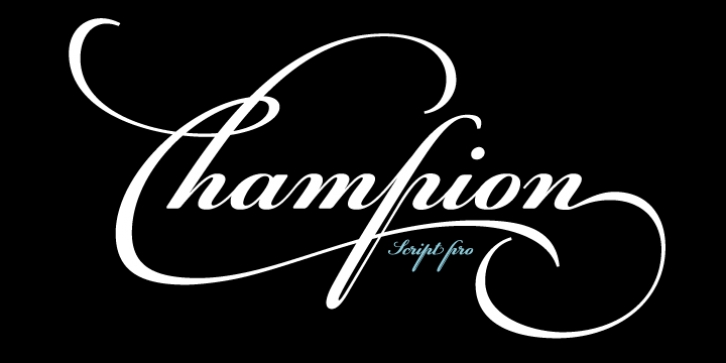
PF Champion Script Pro is perhaps the most advanced and powerful calligraphic family ever made.
It received an award for Excellence in Type Design from the International Type Design Competition ‘Modern Cyrillic 2009’ which was held in Moscow.
Most recently, it received another award from the 3rd International Eastern Type Design Competition - Granshan Awards 2010.
This typeface was first presented in June 2007 at the 3rd International Conference on Typography and Visual Communication (ICTVC) and was met with rave reviews.
It is based mainly on the manuscripts of the 18th century English calligrapher Joseph Champion. Developed over a period of two and a half years, each one of the 2 weights is loaded with 4300 glyphs(!), offering simultaneous support for all European languages based on the Latin, Greek and Cyrillic scripts. Furthermore, a wide selection of alternate forms and ligatures is included for all languages, in order to accommodate diverse design aesthetics. These alternates are either applied automatically through an advanced programming scheme, or manually through several OpenType features.
An attempt was made to design a contemporary script typeface with classic roots, by following certain guidelines, i.e. lowercase characters were designed so they are less inclined, have a higher x-height and are less condensed than the original. Several characters were stripped-off their connecting lines in order to enhance legibility. Four sets of alternate swashed capitals as well as a plethora of ornaments and frames (117) was included. Small caps and their alternate forms were designed to replace the capitals which disrupt the flow of text within a sentence with their extravagant swashes. All characters were carefully designed with the proper weight in order to sustain harsh printing conditions (on special papers), a situation which affects mainly the light connecting parts of calligraphic typefaces.
Finally, it was programmed in such a way as to preserve handwriting qualities, by designing an extensive array of ligatures and alternate glyphs in all languages, never before released or incorporated within the same font.